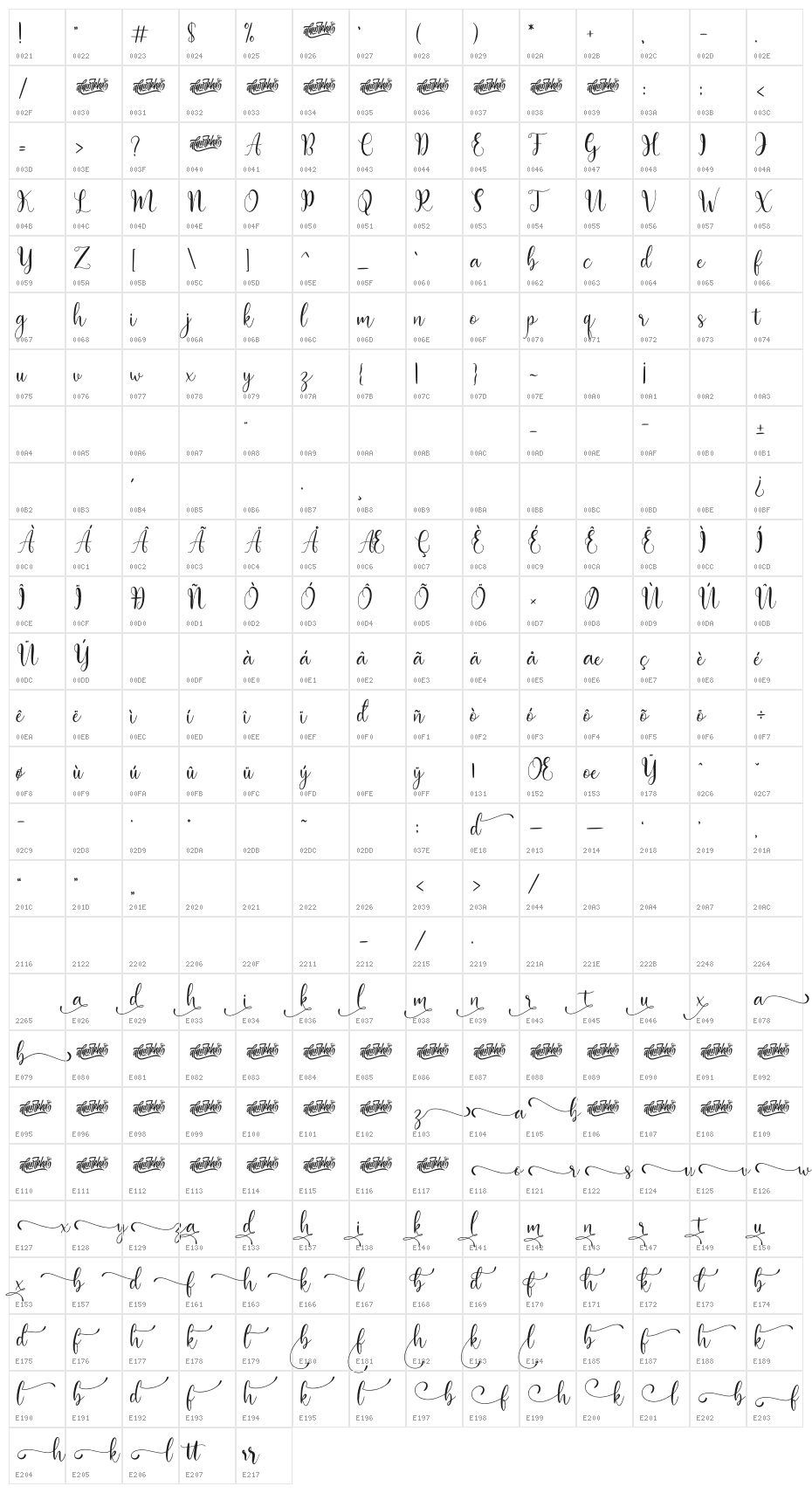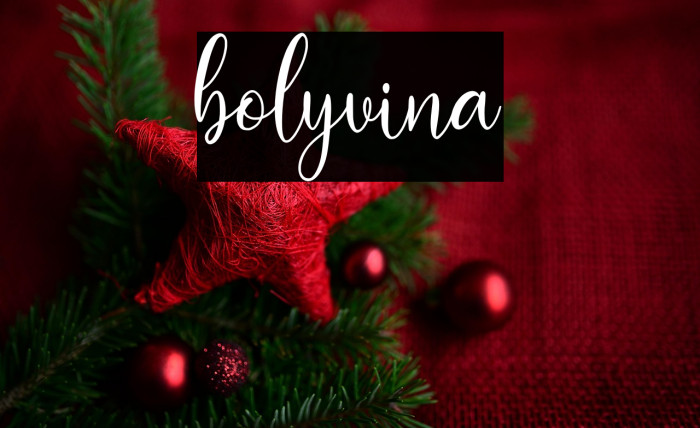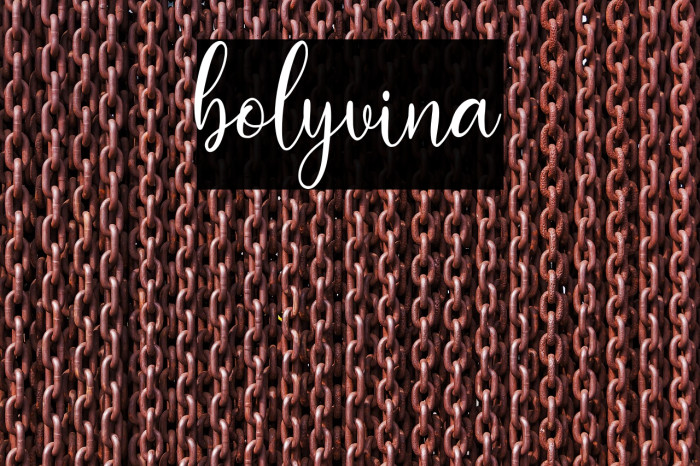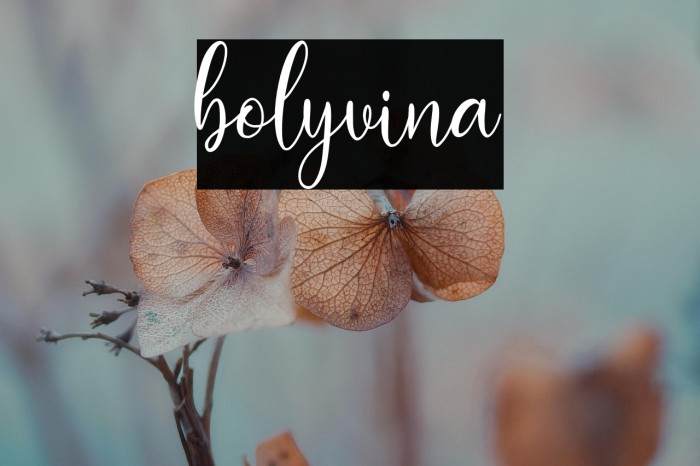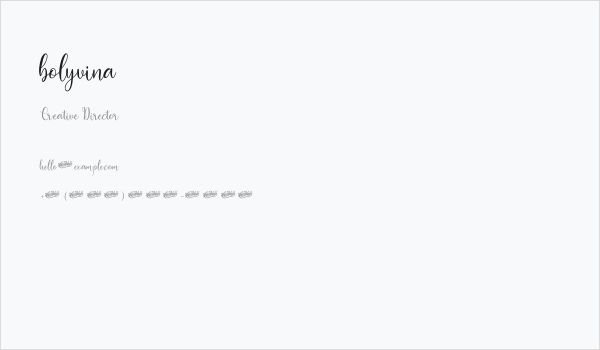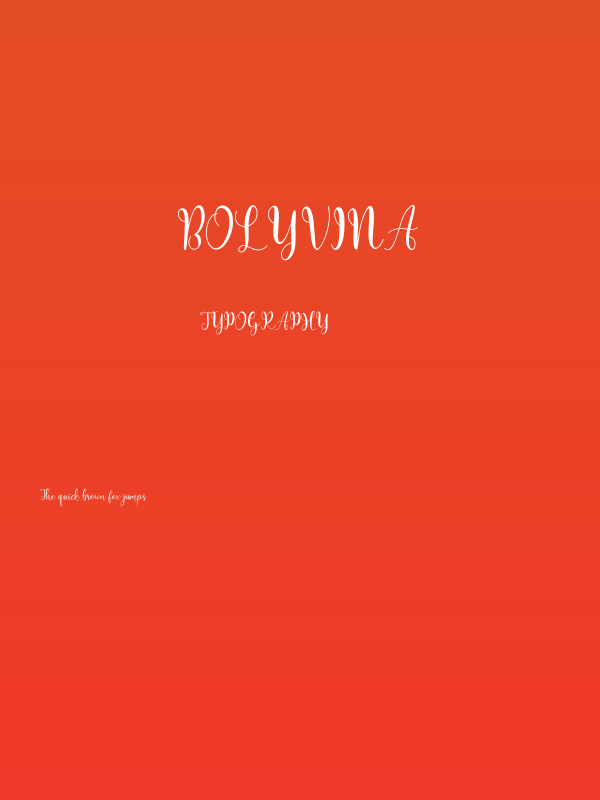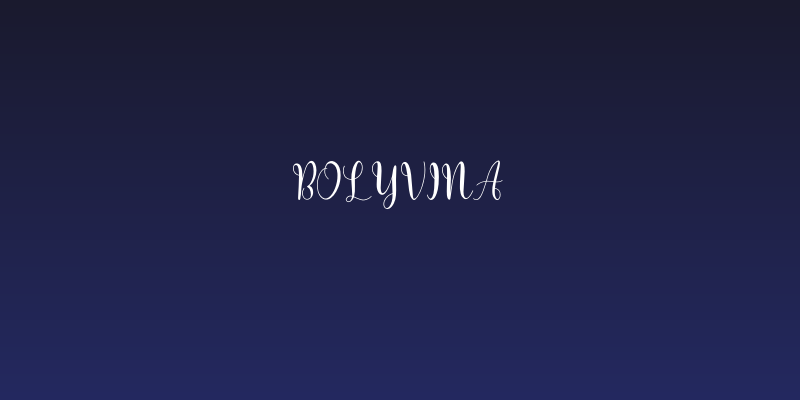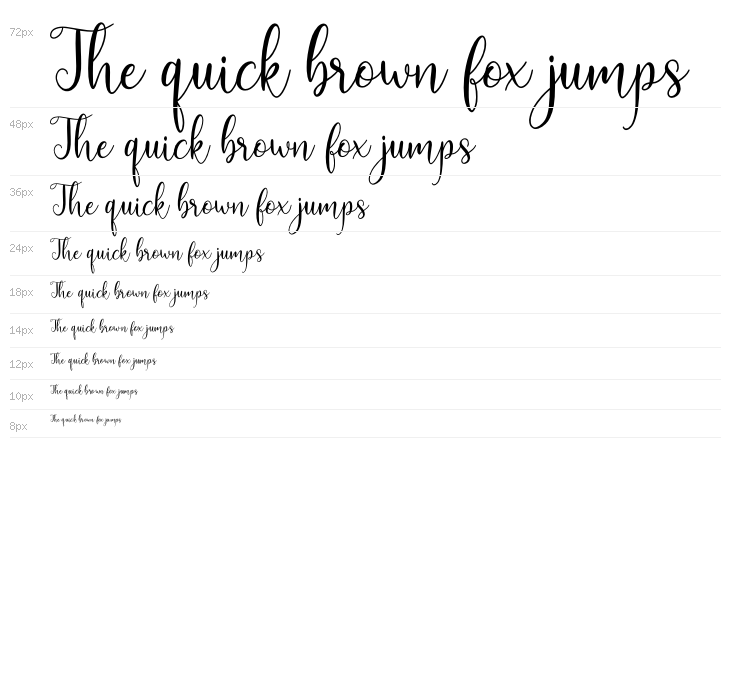
bolyvina Font
bolyvina Description
This font features an elegant and flowing script style, characterized by its smooth, cursive letterforms. The uppercase letters exhibit a graceful, looping design with varying stroke widths that add a dynamic and sophisticated touch. The lowercase letters maintain a consistent flow, complementing the uppercase with their rounded and connected strokes. The font includes a full set of numerals and a variety of special characters, each maintaining the same fluid and artistic style. The overall appearance is both classic and modern, making it versatile for various design applications.
| Overall Style | Elegant, Modern |
| Proposed Projects | Ideal for wedding invitations, branding, logo design, and elegant stationery. |